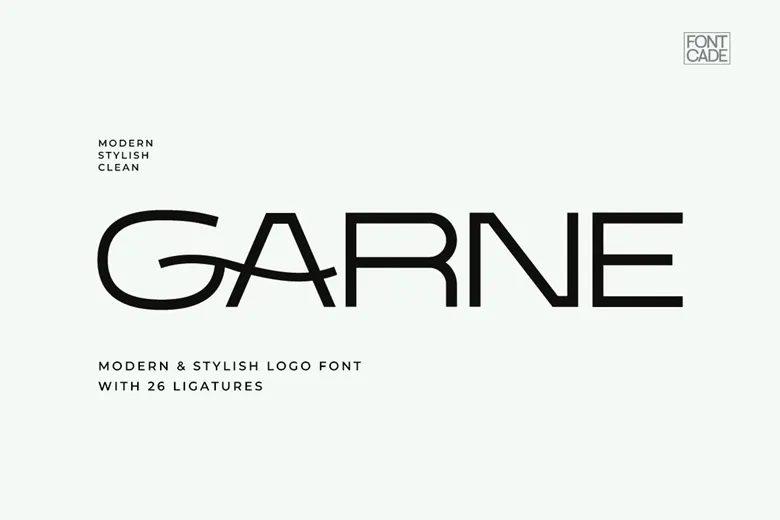
Garne Font
Garne is an elegant and practical logo typeface with a slight taste of the modern. With 26 beautifully designed ligatures, it introduces a touch of flair and elegance due to stylish letterform pairing. Perfect to use in branding, logos, and other design projects, Garne will provide sophistication and modern touch to any visual idea.
Garne Logo Font